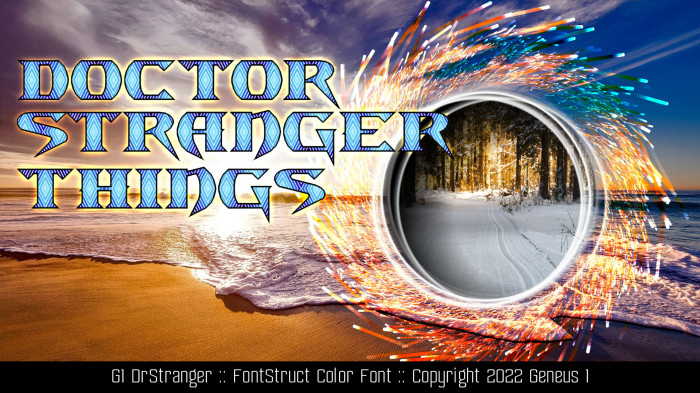
• Opening Day of Doctor Strange in the Multiverse of Madness! Love the cinematic multiverses, including Everything, Everywhere, All At Once! This is a Multidimensional color font that expands through every reality. Enjoy!
I like the Medieval-Futuristic look that this shows!
These blues in the pattern, very effective!